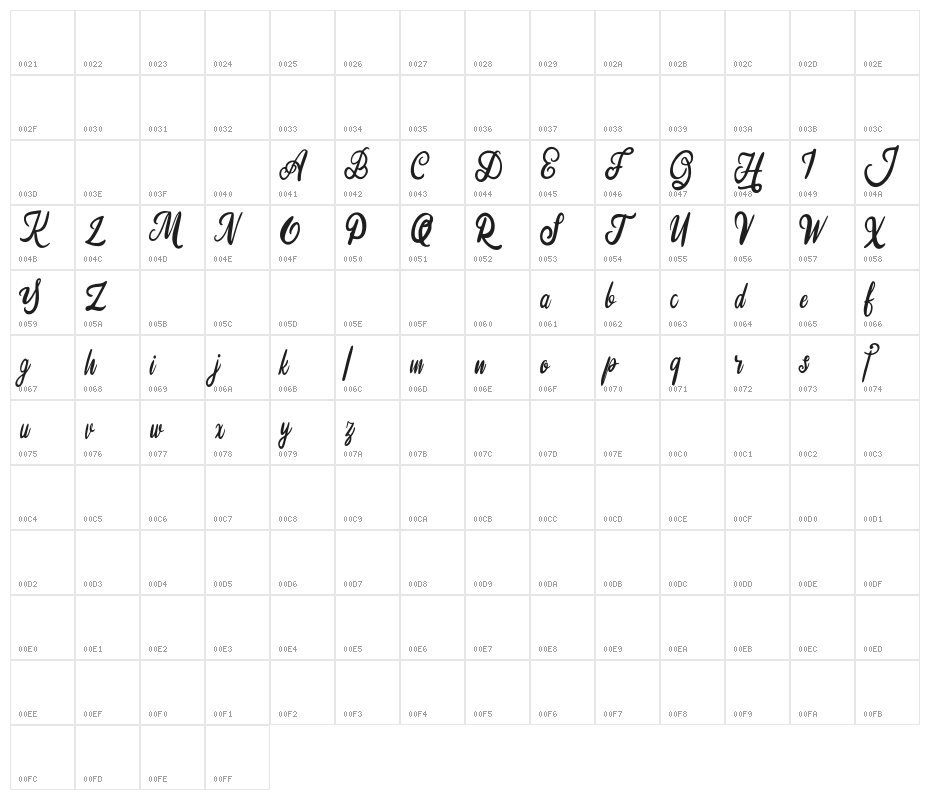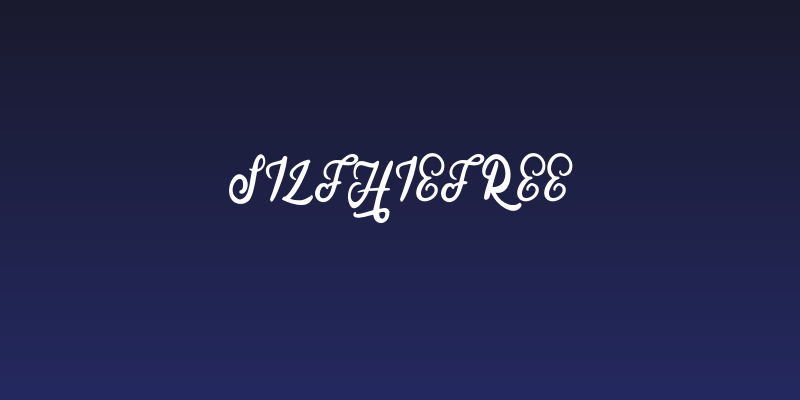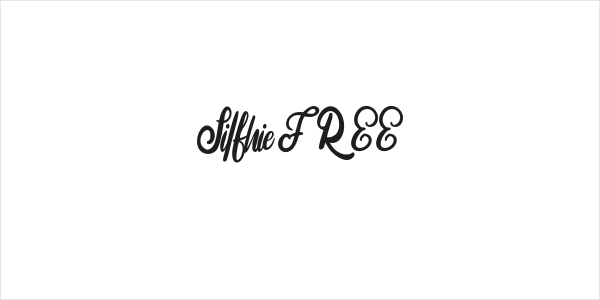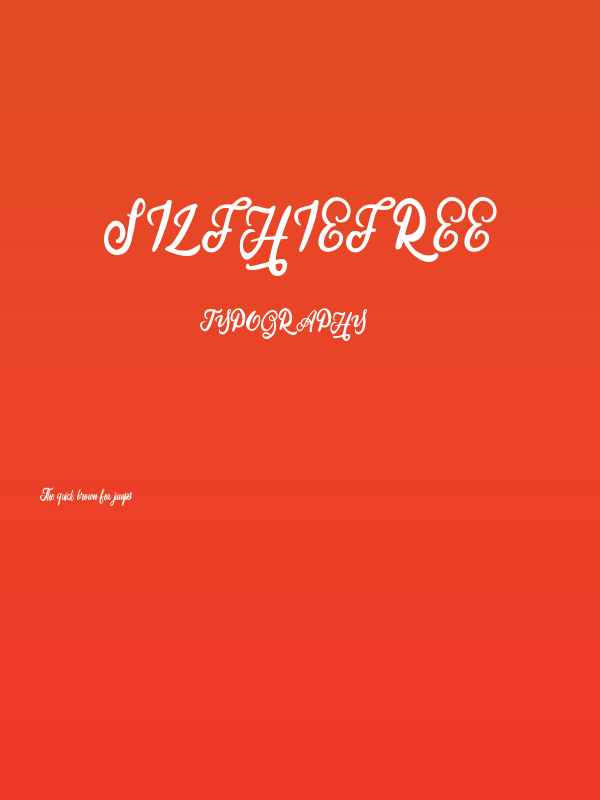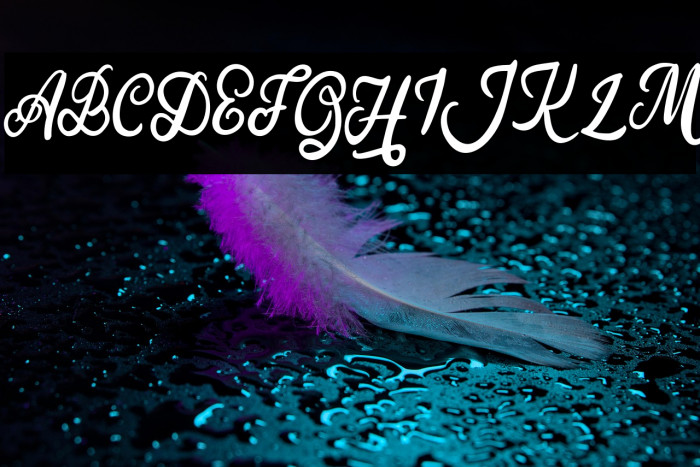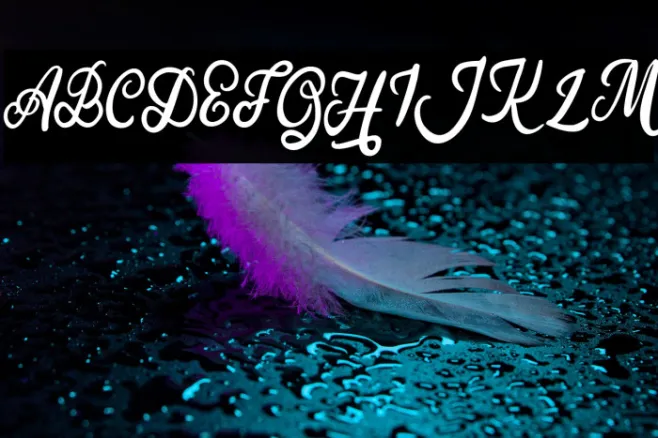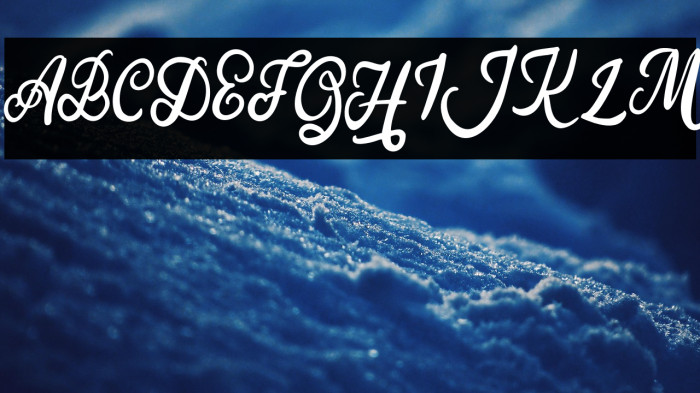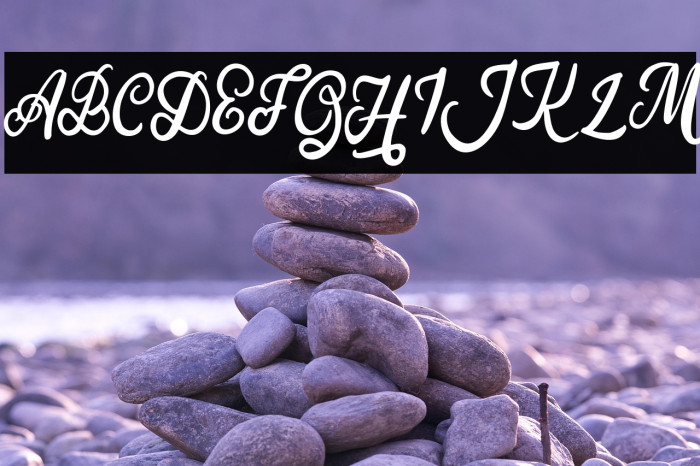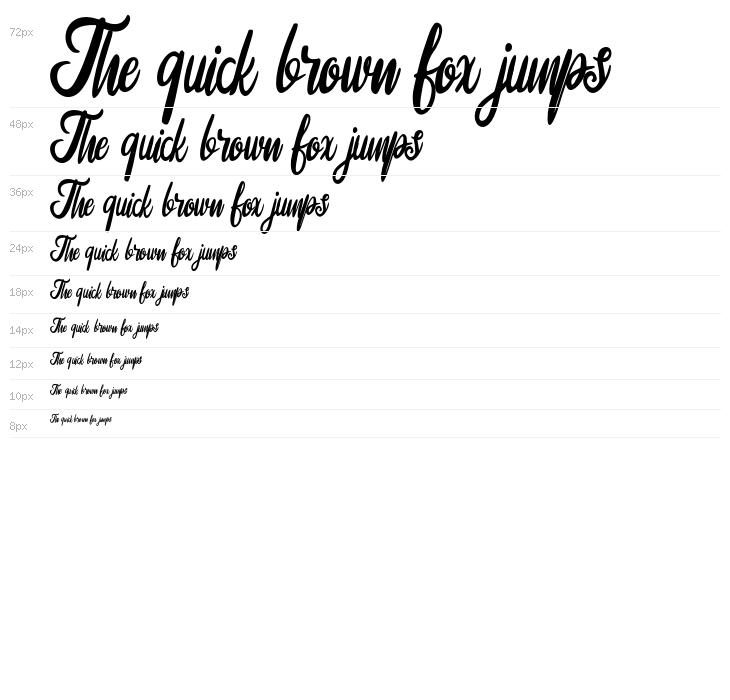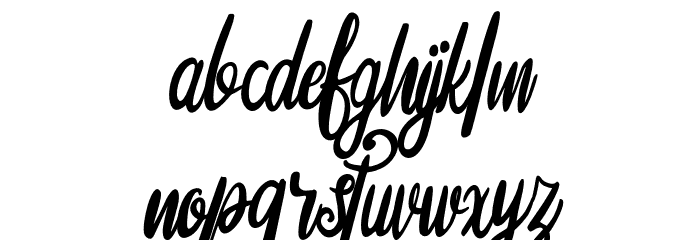
SilfhieFREE Font
SilfhieFREE Description
This elegant script font features flowing, interconnected letters with a classic and sophisticated style. The uppercase letters are ornate with intricate loops and swirls, while the lowercase letters maintain a consistent, graceful flow. The font exudes a sense of formality and refinement, making it ideal for projects that require a touch of elegance. The characters are well-balanced, with a slight slant that enhances the script's fluidity. The overall design is both decorative and legible, suitable for various creative applications.